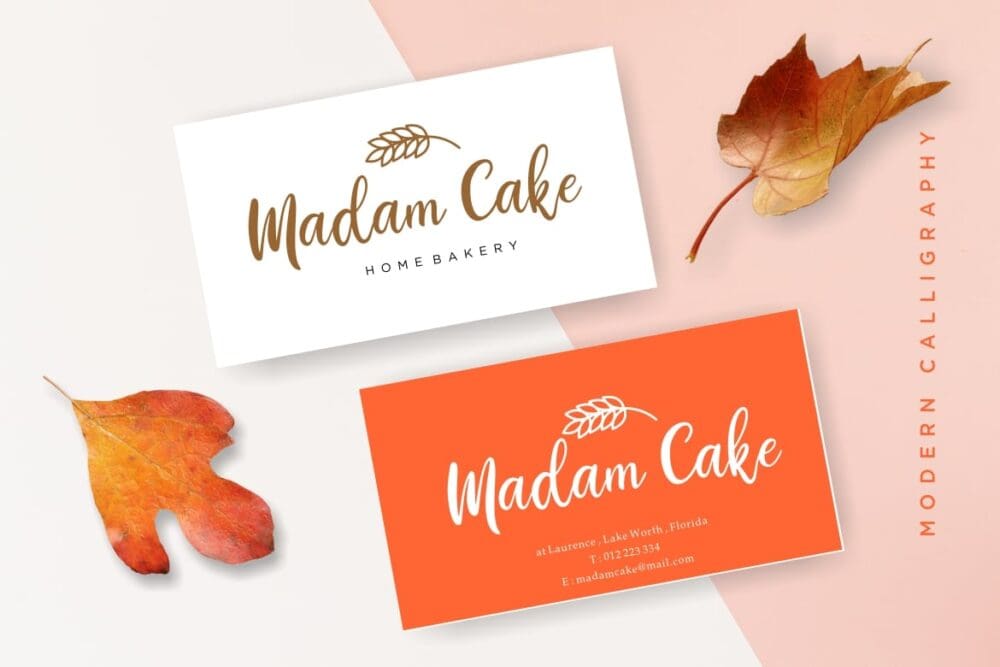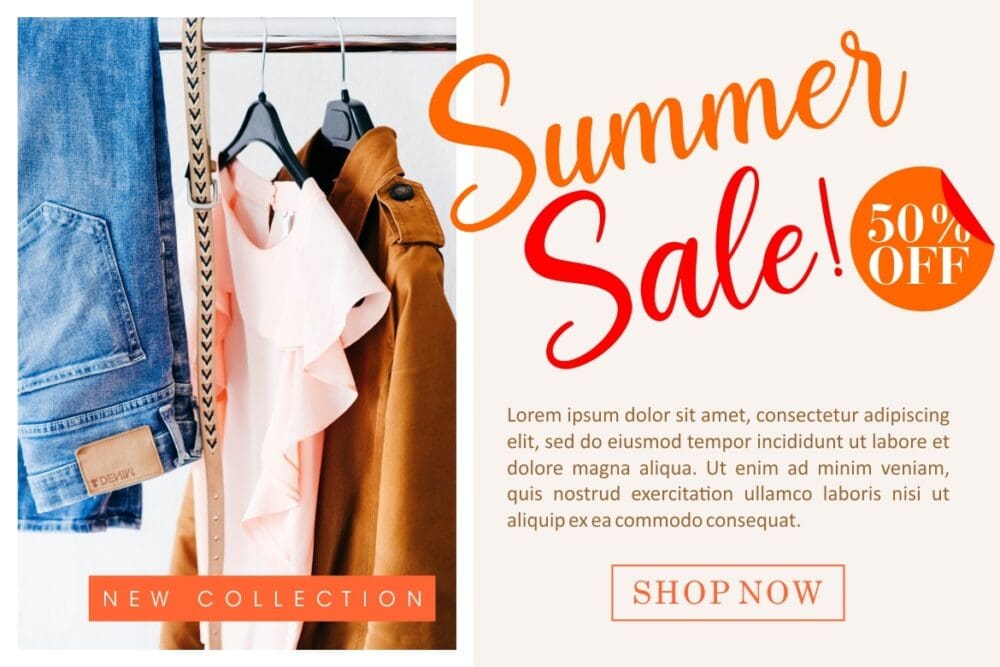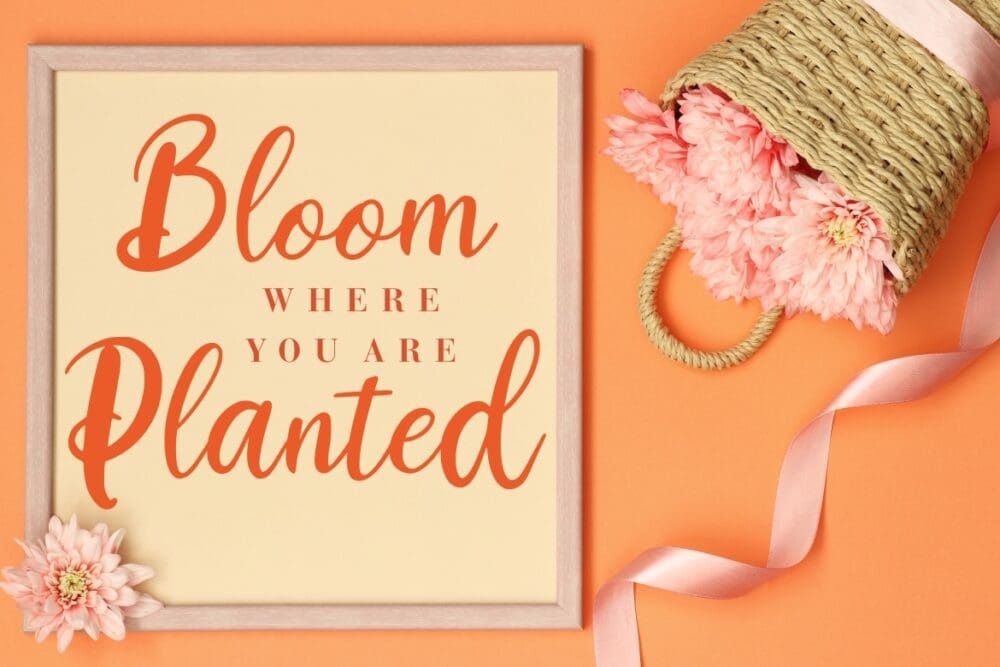
Magdalyn Modern Calligraphy Font
Magdalyn Modern Calligraphy Font looks elegant which suits the wedding invitation event. Magdalyn is perfect for branding projects, logos, wedding designs, photography, watermark, invitation, stationery, and more.